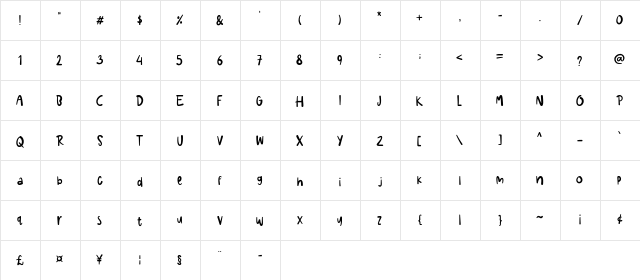
Sing Buneng Bae Demo Regular
Sing Buneng Bae Demo is a composed and adaptable typeface that performs quietly and consistently across a wide range of design contexts.